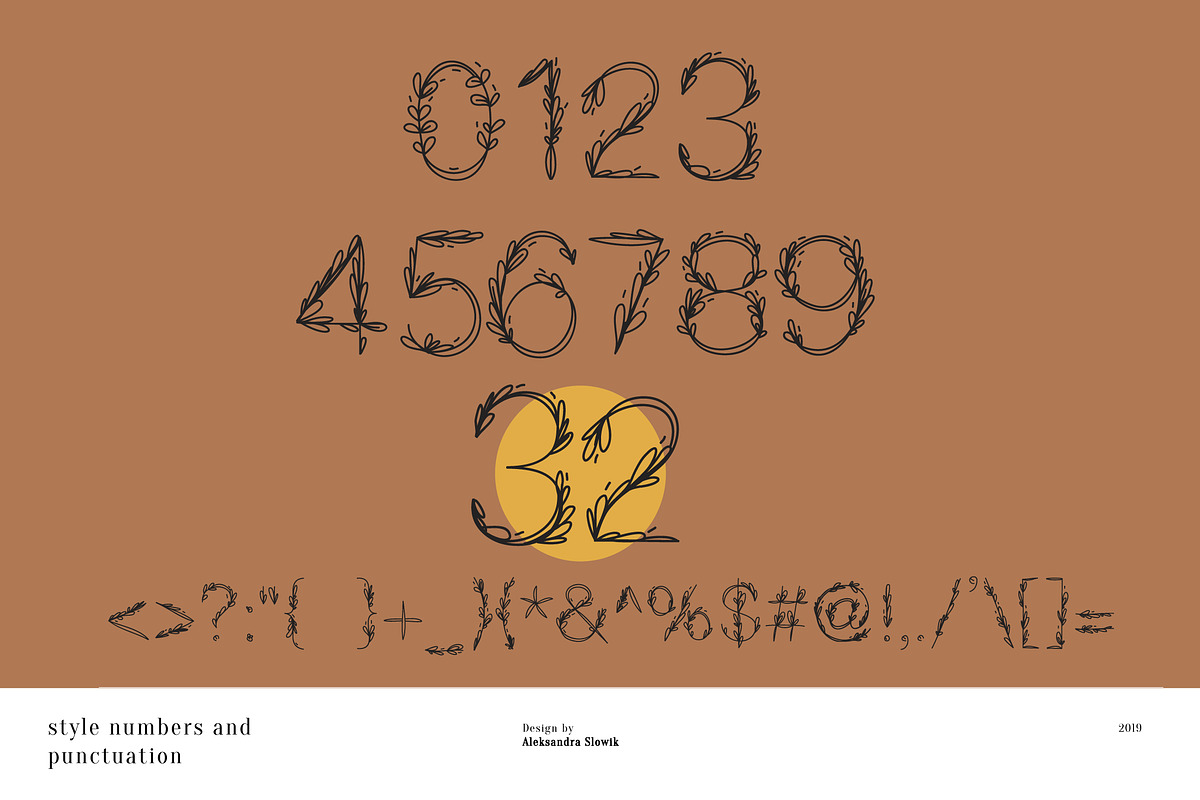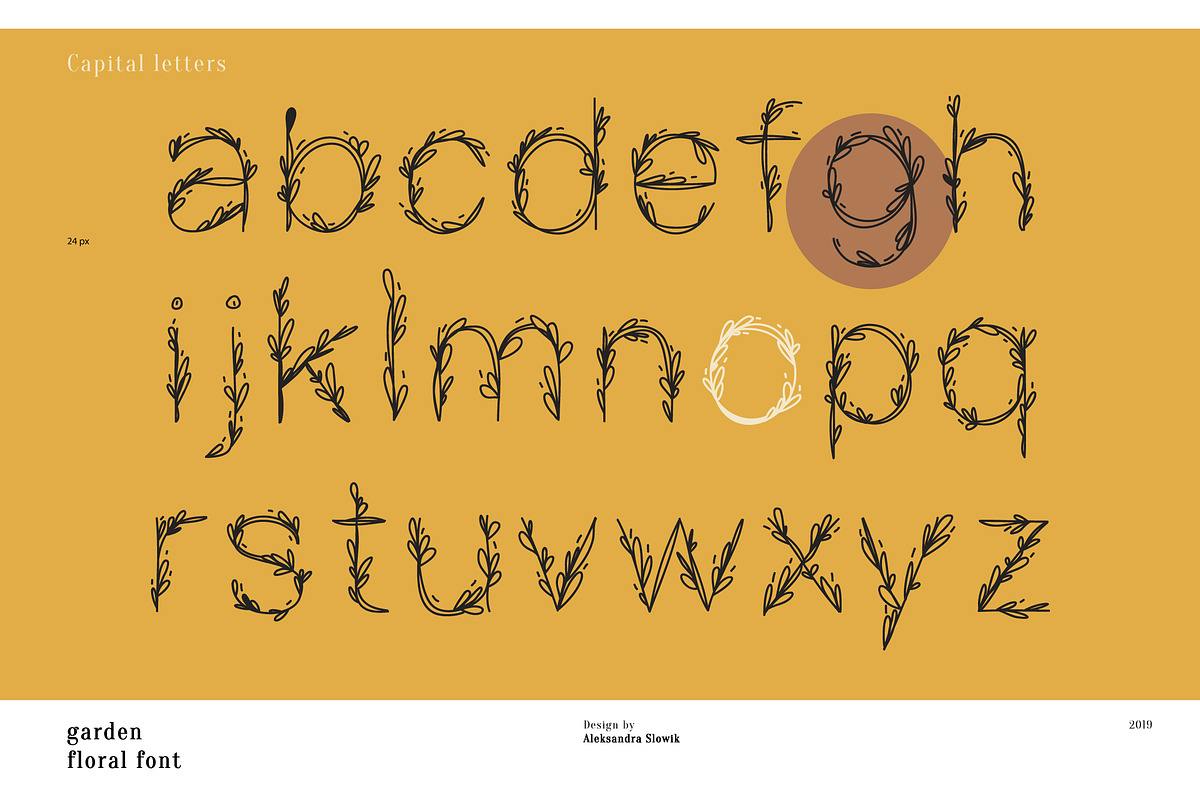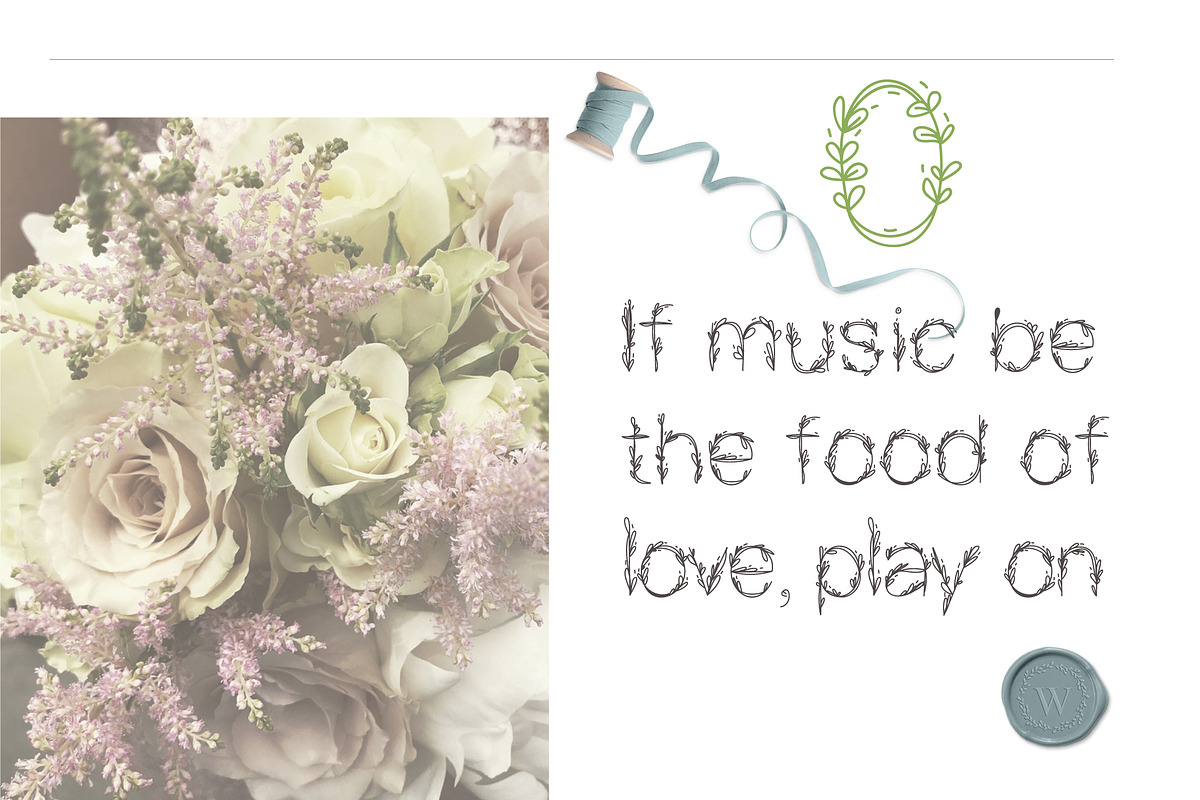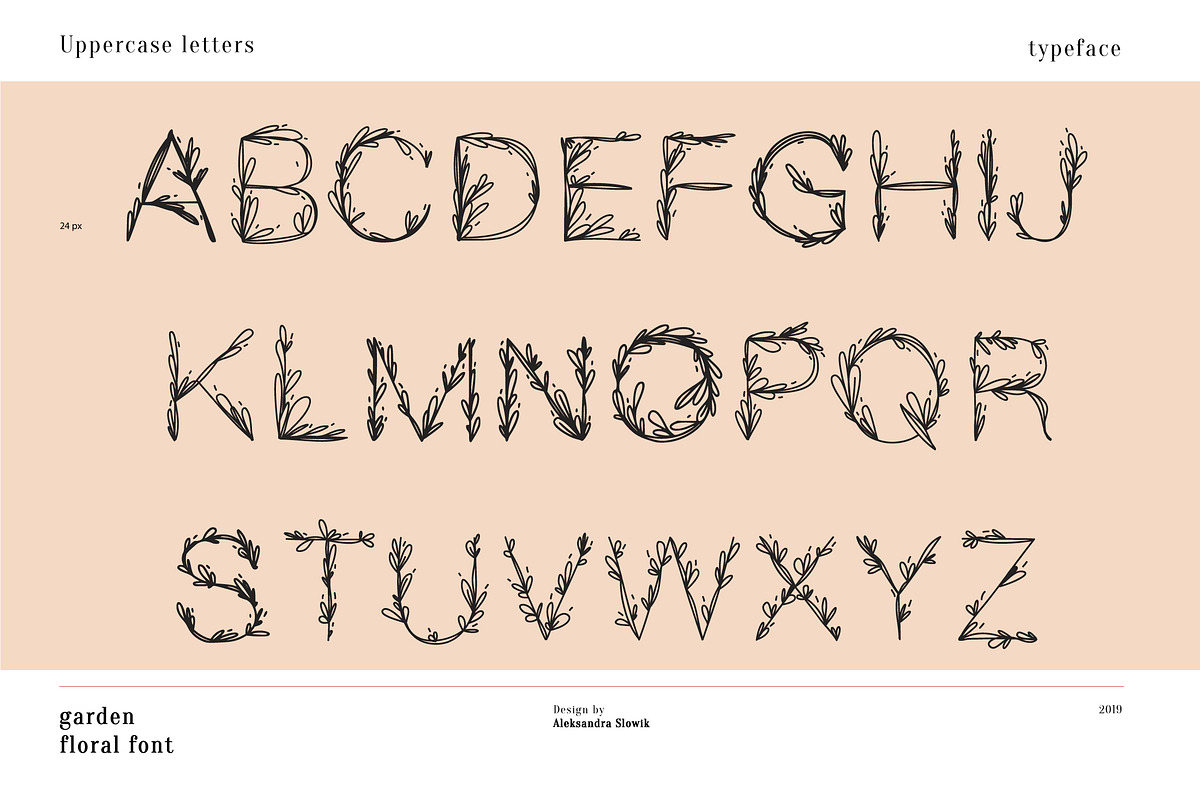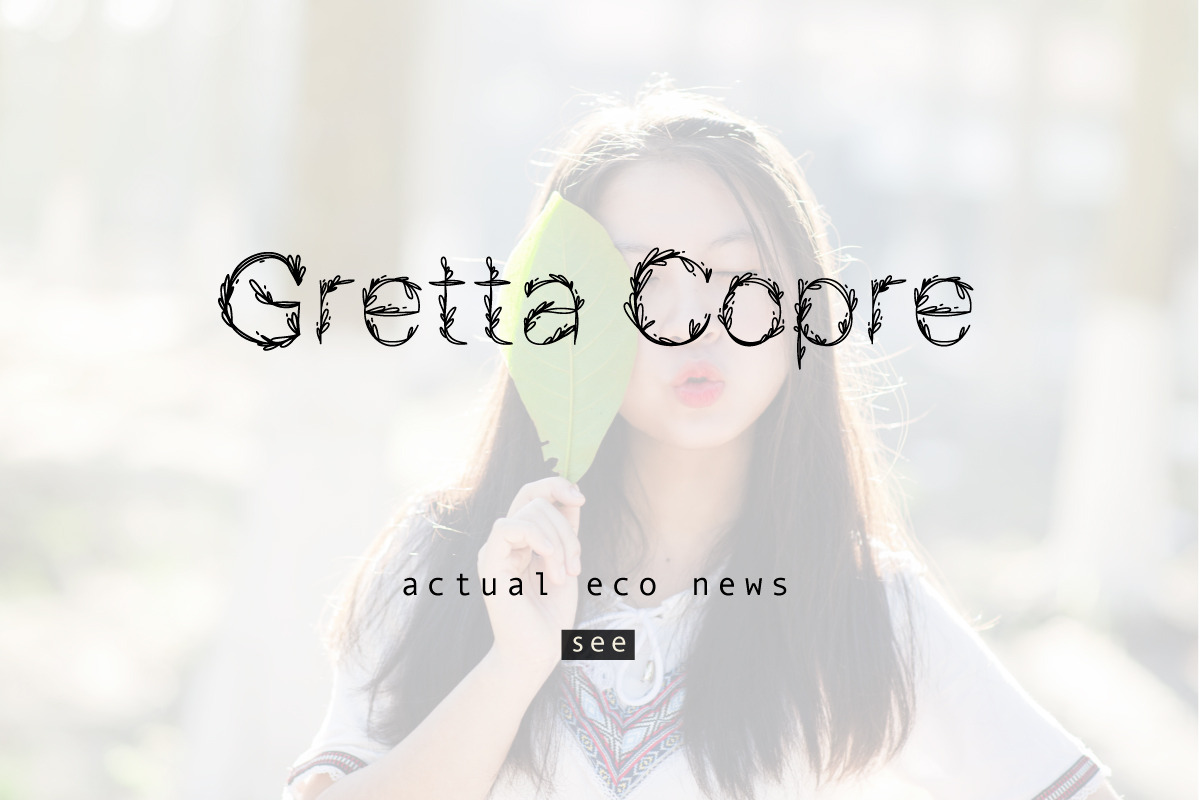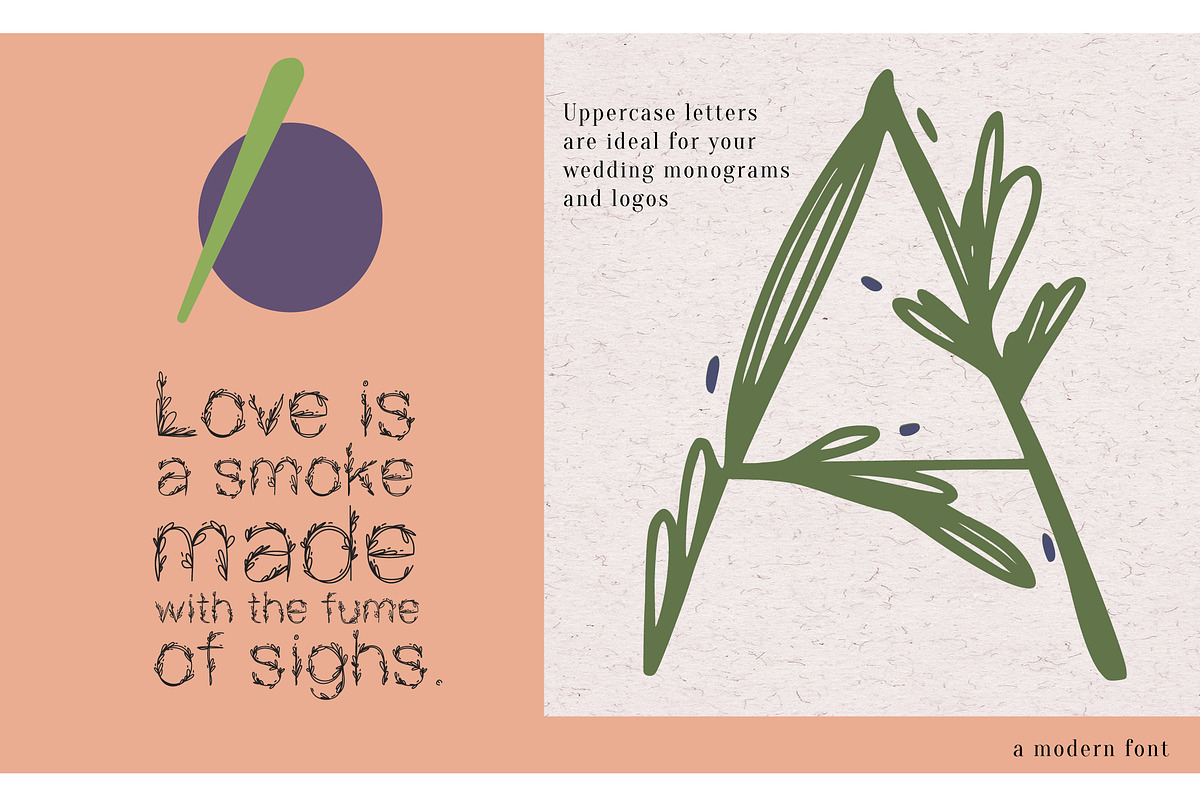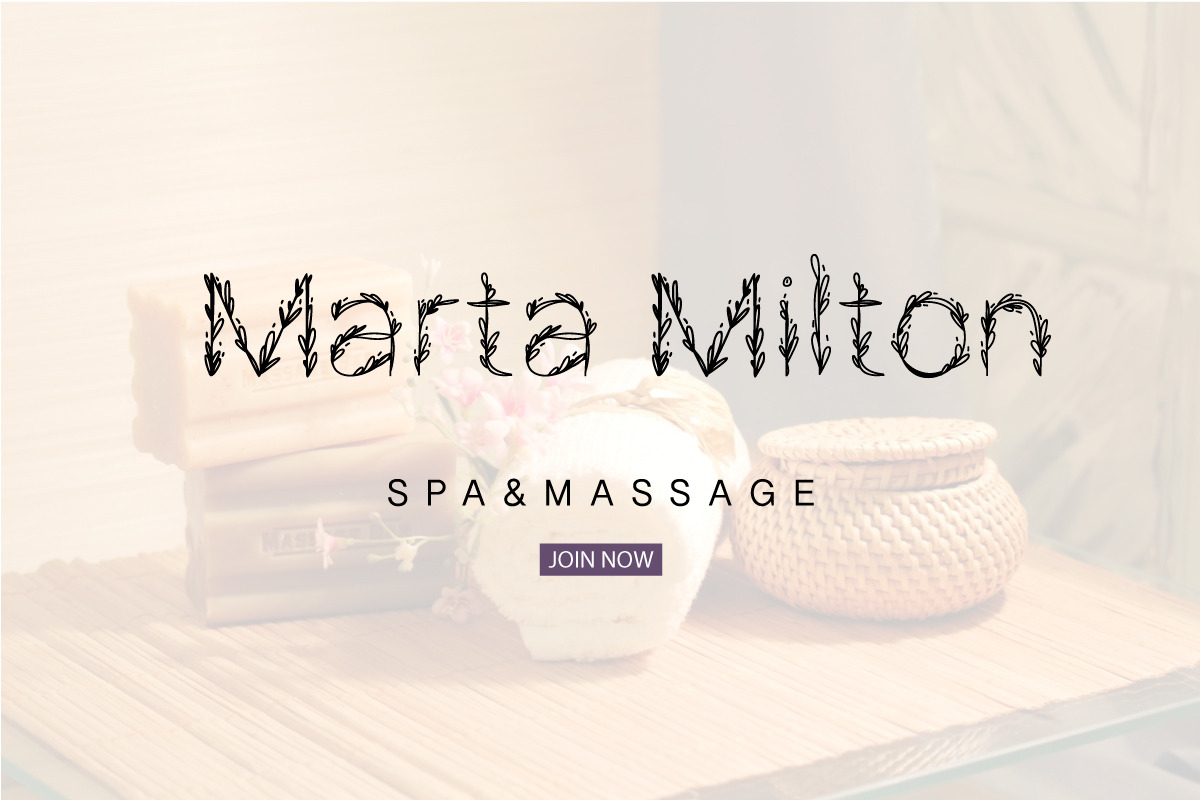
Garden|floral romantic font
This font was created manually.
Each letter - leaflets and twigs of the vine and other collective images. There are large and small letters, which makes its use wide. The font is ideal for a romantic style.